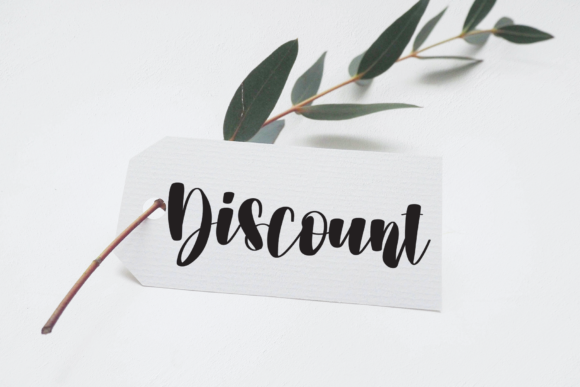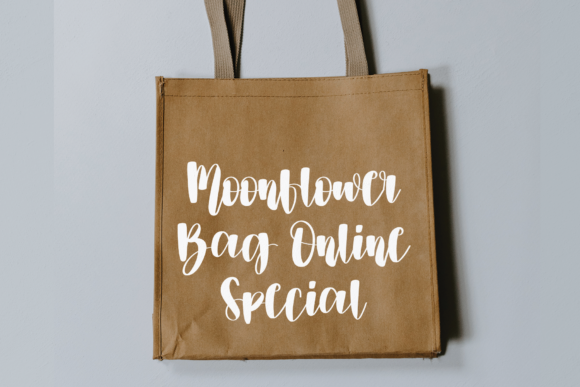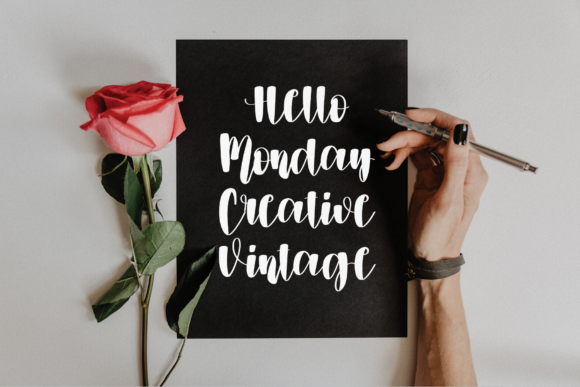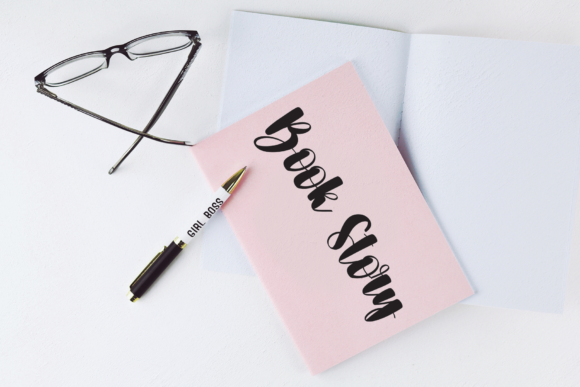
Coffee White Font: Elevate Your Designs with Elegance and Trendiness
In the world of typography, a font can make or break the aesthetic of a design project. For designers and crafters seeking a stylish and elegant touch, Coffee White Font is an excellent choice. This chic, thick lettered script font is designed to emanate trendiness and sophistication, making it perfect for a wide range of projects.
What is Coffee White Font?
Coffee White Font is a modern script font that boasts a unique blend of style and elegance. Its thick lettering gives it a bold and eye-catching appearance, while its script style adds a touch of sophistication and refinement. This font is ideal for designers who want to add a luxurious feel to their projects, whether it’s a branding campaign, a wedding invitation, or a packaging design.
Key Features of Coffee White Font
- Stylish Alternates: Coffee White Font comes with a range of stylish alternates that allow designers to add variety and creativity to their work. These alternates can be used to create a unique and personalized look that sets a project apart from the rest.
- Ligatures: The font also features ligatures, which are special characters that combine two or more letters to create a single, flowing unit. Ligatures add a touch of elegance and sophistication to a design, making it perfect for projects that require a high level of refinement.
- Thick Lettering: The thick lettering of Coffee White Font gives it a bold and eye-catching appearance that demands attention. This feature makes it ideal for headlines, titles, and other design elements that need to stand out.
Why Choose Coffee White Font?
There are many reasons why designers and crafters should consider Coffee White Font for their projects. Here are a few:
- Trendiness: Coffee White Font is a trendy and modern font that is sure to give any project a fresh and contemporary look.
- Elegance: The font’s elegant script style and stylish alternates make it perfect for projects that require a high level of sophistication and refinement.
- Versatility: Coffee White Font can be used for a wide range of projects, from branding and advertising to wedding invitations and packaging design.
- Easy to Read: Despite its bold and thick lettering, Coffee White Font is easy to read and understand, making it perfect for body text and other design elements that require clear communication.
How to Use Coffee White Font
Coffee White Font can be used in a variety of ways to elevate a design project. Here are a few ideas:
- Branding and Advertising: Use Coffee White Font as a logo or title font to add a touch of elegance and sophistication to a brand’s identity.
- Wedding Invitations: The font’s elegant script style and stylish alternates make it perfect for wedding invitations and other stationery designs.
- Packaging Design: Coffee White Font can be used to add a touch of luxury and sophistication to packaging design, making it perfect for high-end products and brands.
- Digital Design: The font can also be used in digital design, such as website headers, social media graphics, and email marketing campaigns.
Coffee White Font is a stylish and elegant script font that is perfect for designers and crafters seeking to add a touch of trendiness and sophistication to their projects. With its thick lettering, stylish alternates, and ligatures, this font is sure to elevate any design project and make it stand out from the rest. Whether you’re working on a branding campaign, a wedding invitation, or a packaging design, Coffee White Font is an excellent choice.